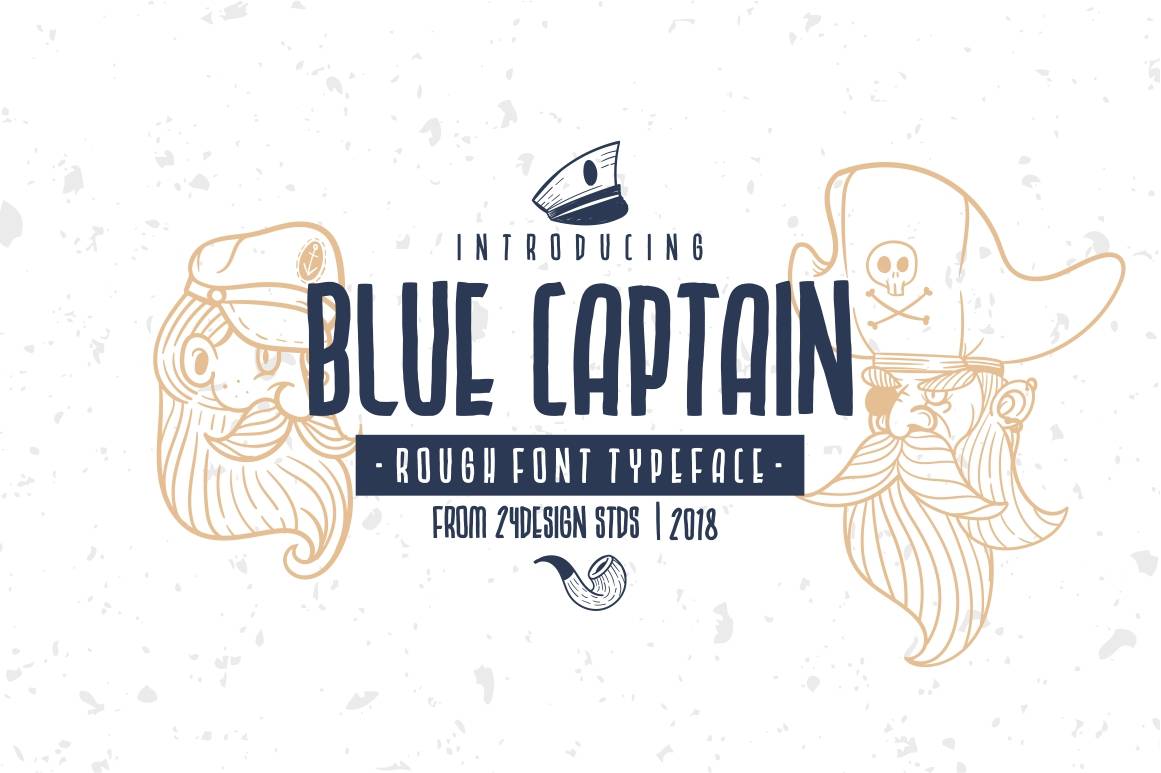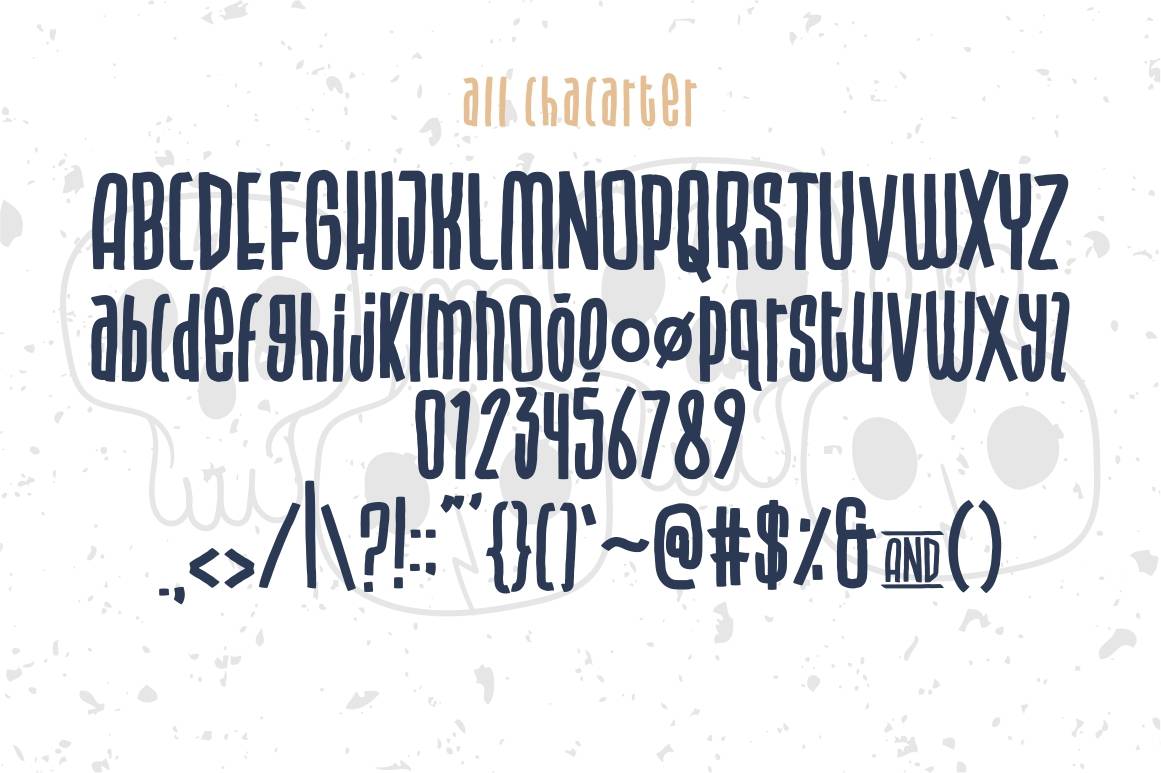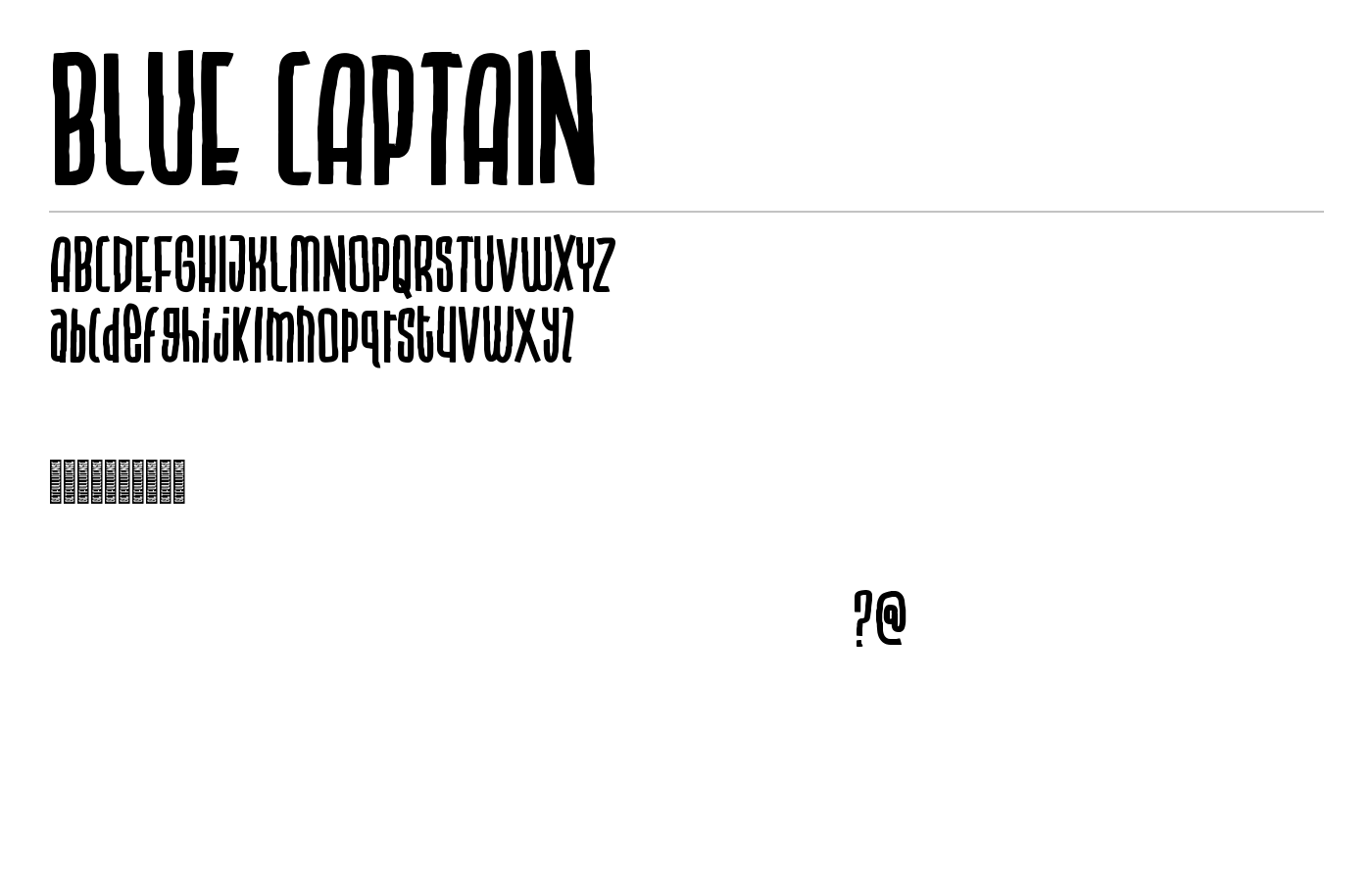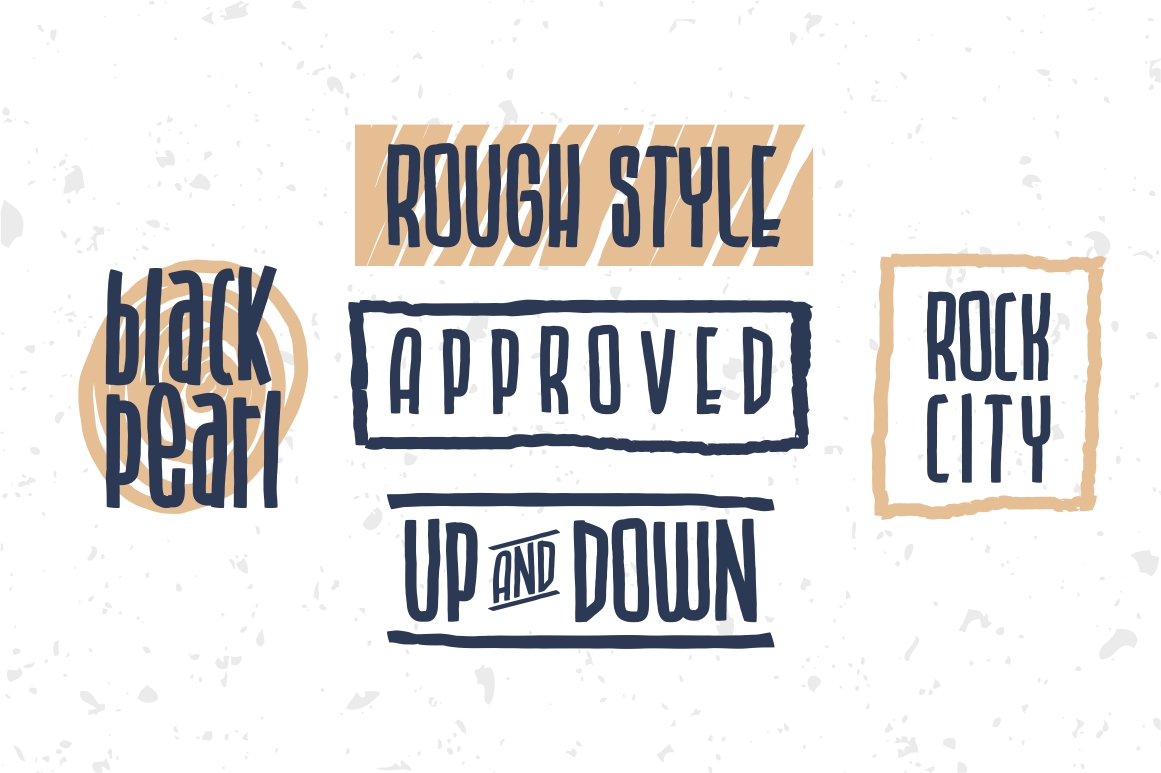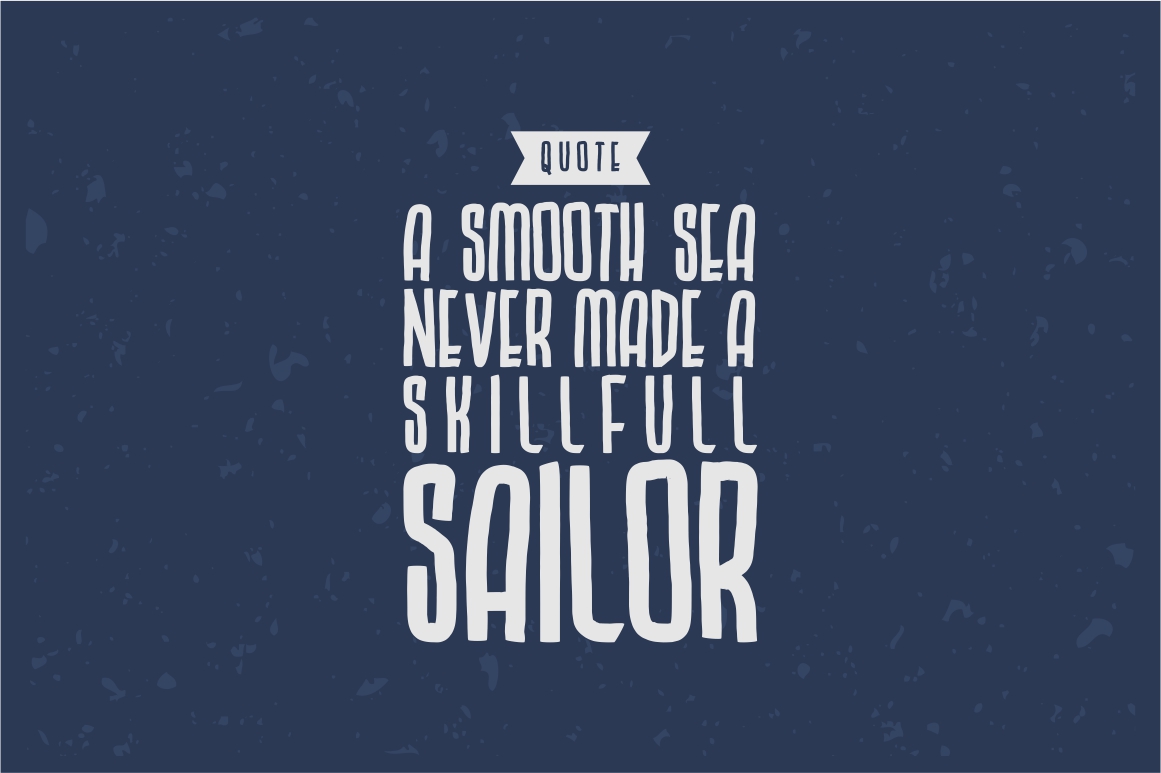
Blue Captain is a tall, condensed sans serif font with a bold, slightly irregular stroke that gives it a distinctive, handcrafted feel. Its narrow letterforms and uneven edges create a vintage yet playful character, making it perfect for eye-catching headlines, posters, and branding that aim to convey personality and uniqueness. This font works well in creative, informal contexts where a strong, memorable impression is desired.
Blue Captain Typeface Font